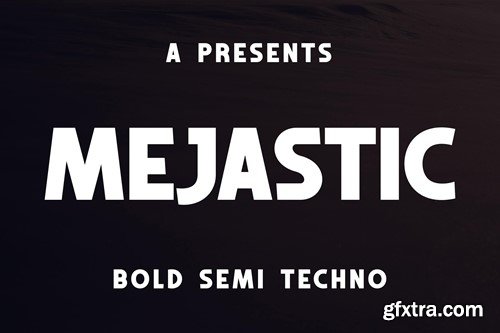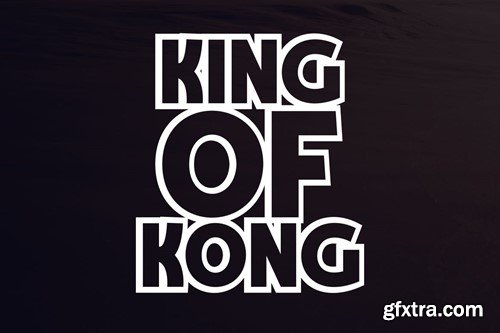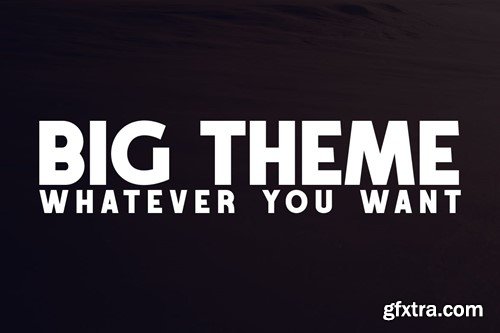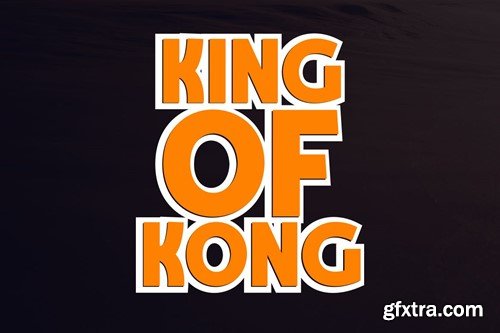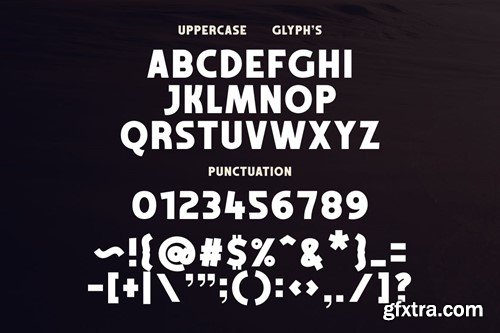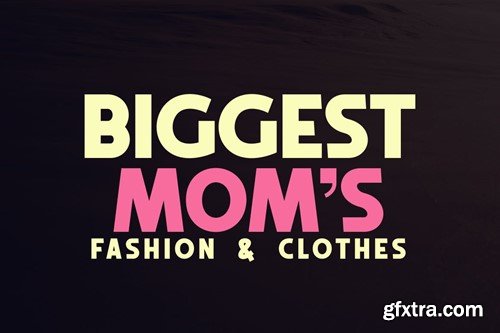
Mejastic Big Font
Experience the unparalleled vitality of the Usability font, perfectly crafted for grand designs. Let your creativity soar as you play with text, transforming ordinary into extraordinary. The more you push boundaries, the more this font comes alive, infusing your work with an unmatched dynamism. Font file included : .OTF & .TTF formats.